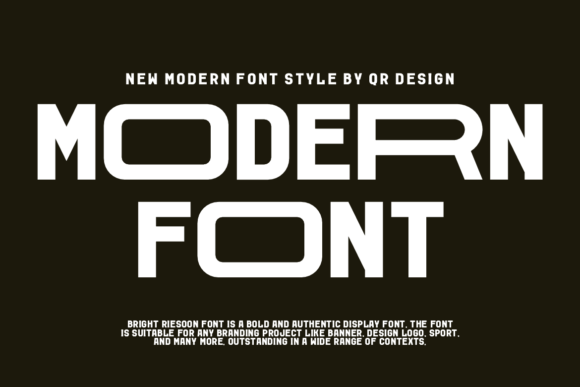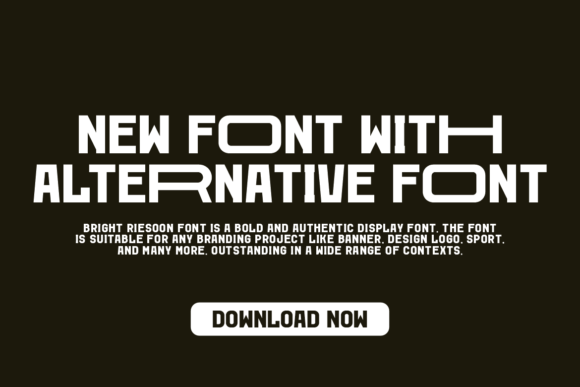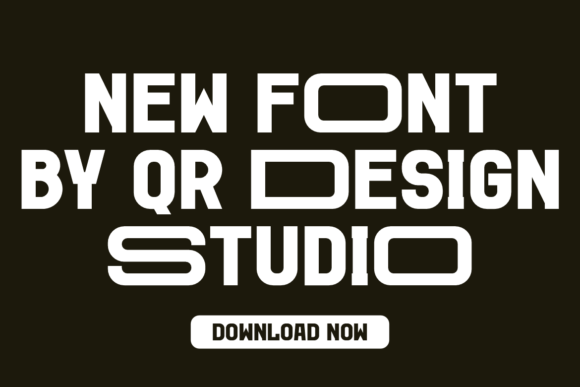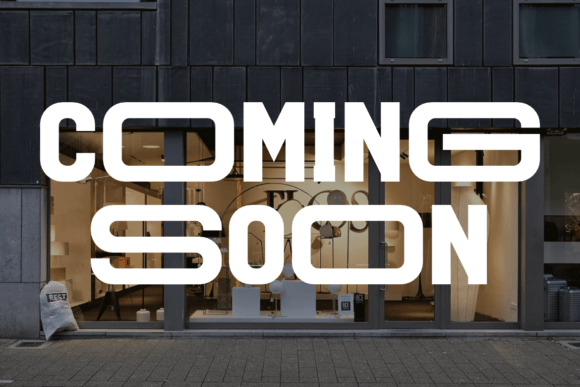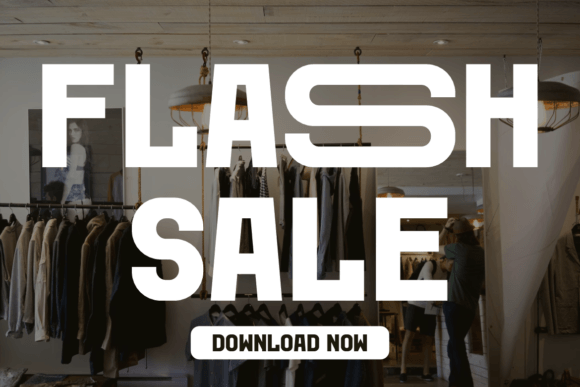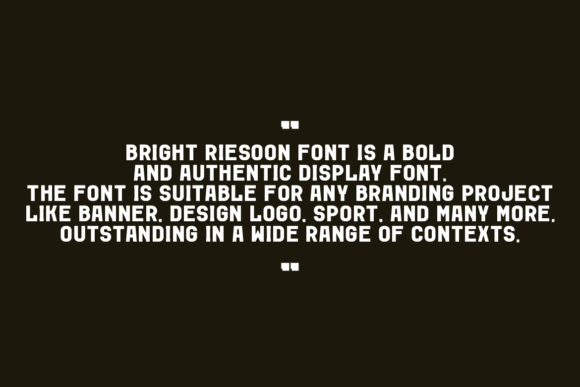
The Perfect Font for Making a Statement
You’ve spent hours brainstorming ideas, pouring over design concepts, and tweaking every detail, but there’s one crucial element that can elevate your creation from good to great – the right font. Remember that moment when you finally found the perfect font to match your vision? For me, it was when I stumbled upon the Bright Riesoon Font – a game-changer that took my designs to the next level.
This cool and powerful sans serif font is perfect for adding a touch of sophistication to your posters, banners, and headlines. With its bold and modern feel, the Bright Riesoon Font is an essential tool for designers looking to make a lasting impression. Its versatility and clean design make it an invaluable asset for any creative project.
Bright Riesoon Font Key Features
- Font Family: Bright Riesoon Font, a modern sans-serif typeface designed for readability and visual appeal.
- Font Size: Supports font sizes ranging from 8pt to 72pt, making it suitable for various applications.
- Resolution: Optimized for high-resolution displays (Retina, 2x, 3x) and scalable for various screen resolutions.
- Unique Characteristics: Bright Riesoon Font features a clean, geometric design with subtle rounded edges, giving it a friendly and approachable feel.
- Language Support: Supports multiple languages, including Latin, Cyrillic, and Greek scripts, making it suitable for global applications.
Bright Riesoon Font Review
At first glance, Bright Riesoon Font is a bold and eye-catching sans-serif font that can elevate any design project. ✨ Its clean lines and modern aesthetic make it perfect for digital displays, billboards, or any design where you want to grab attention.
Here are some features that I particularly like:
- High Contrast Ratio – The font’s bold weight makes it perfect for use on screens with high contrast ratios, ensuring readability and visibility.
- Customizable – The font’s flexibility allows you to adjust its size, color, and line height to suit your design needs.
- Legible – The font’s letterforms are clear and easy to read, even at small sizes.
However, I do have a few concerns:
⚠️ Limited Font Weight Options – While the bold weight is great, I wish there were more font weight options to choose from, especially for more subtle designs.
⚠️ Lack of Italic Style – The absence of an italic style limits the font’s versatility and can make it difficult to use in certain design contexts.
Overall, Bright Riesoon Font is a solid choice for designers looking to create bold and attention-grabbing designs. While it has its limitations, its modern aesthetic and high contrast ratio make it a great option for digital displays and billboards.
Getting the Most Out of Bright Riesoon
To get the most out of Bright Riesoon, consider the following tips:
- Use it in bold or italic styles to add emphasis.
- Pair it with other fonts to create a unique visual identity.
- Experiment with different font sizes to create visual hierarchy.
Bright Riesoon is ideal for:
- Headlines and titles.
- Branding and logos.
- Editorial and publishing content.
- Marketing materials and social media posts.
Alternatives to Bright Riesoon Font
Montserrat Font is a sans-serif typeface designed by Julieta Ulanovsky. It is a great alternative for Bright Riesoon Font when you need a clean and modern look. Montserrat is ideal for digital products, apps, and websites that require a clear and easy-to-read font. Compared to Bright Riesoon Font, Montserrat has a more geometric and minimalist design, making it perfect for modern branding and design.
Open Sans Font is a popular sans-serif typeface designed by Steve Matteson. It is a great alternative for Bright Riesoon Font when you need a friendly and approachable look. Open Sans is ideal for digital products, websites, and documents that require a clear and readable font. Compared to Bright Riesoon Font, Open Sans has a more rounded and friendly design, making it perfect for blogs, magazines, and social media platforms.
Lato Font is a sans-serif typeface designed by Łukasz Dziedzic. It is a great alternative for Bright Riesoon Font when you need a clean and elegant look. Lato is ideal for digital products, apps, and websites that require a sophisticated and modern font. Compared to Bright Riesoon Font, Lato has a more refined and polished design, making it perfect for luxury branding and high-end design.
For optimal readability, we recommend using the Bright Riesoon Font at a minimum font size of 12 points for body text and 18 points for headings. A line height of 1.2 to 1.5 times the font size is also recommended to ensure comfortable reading and prevent text from becoming too dense.